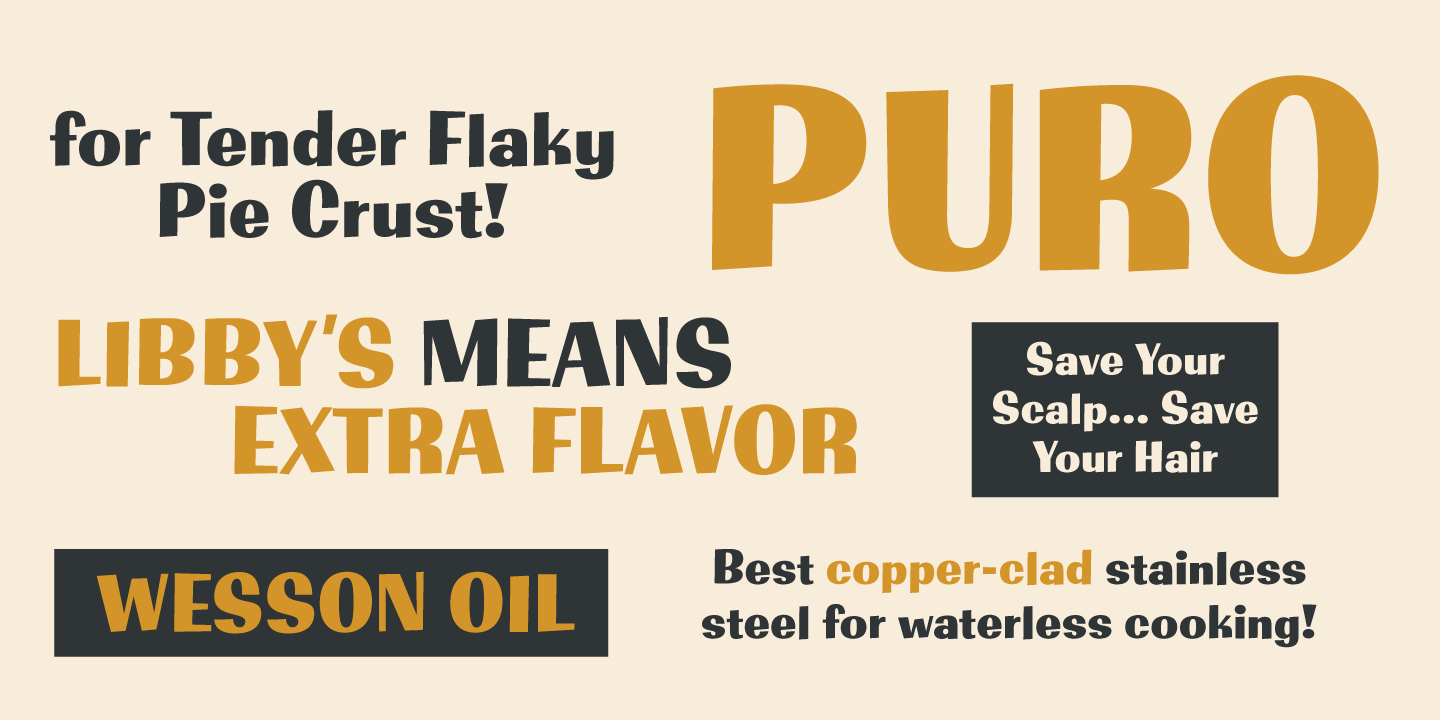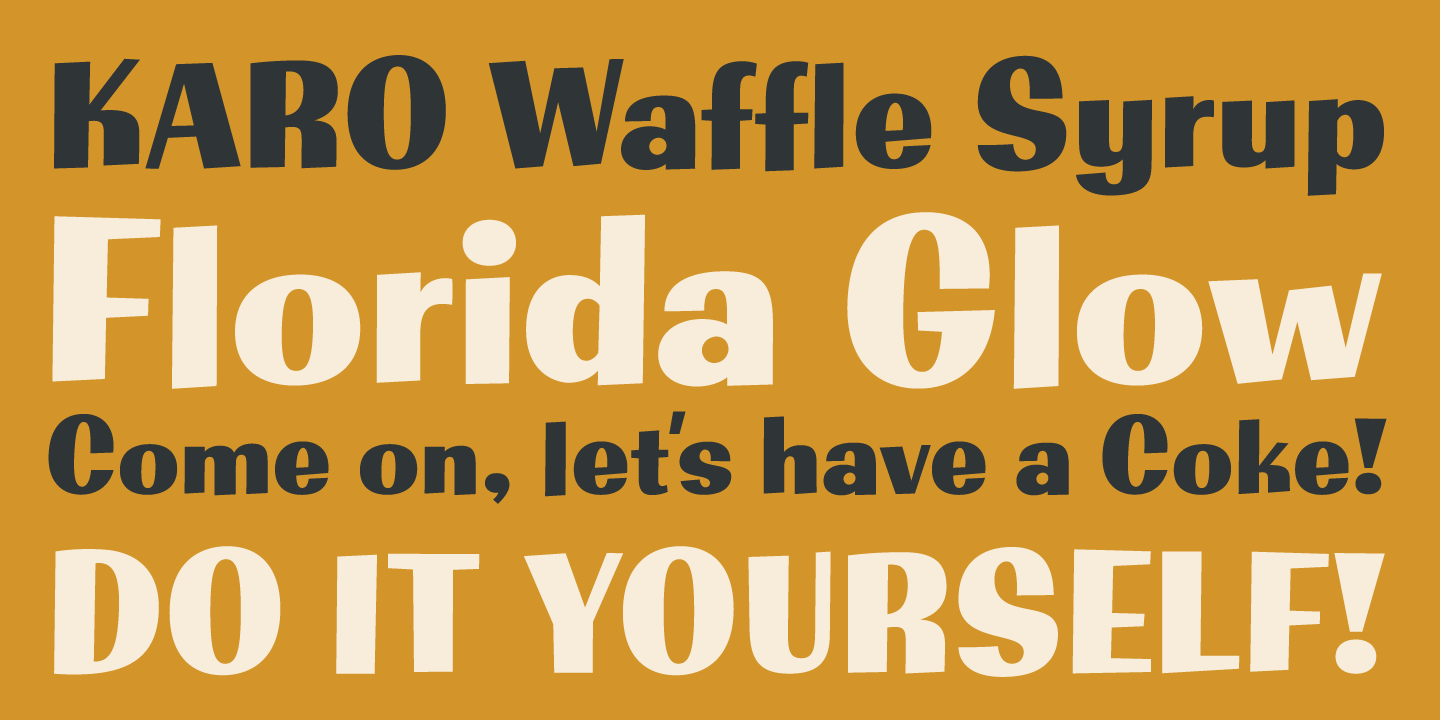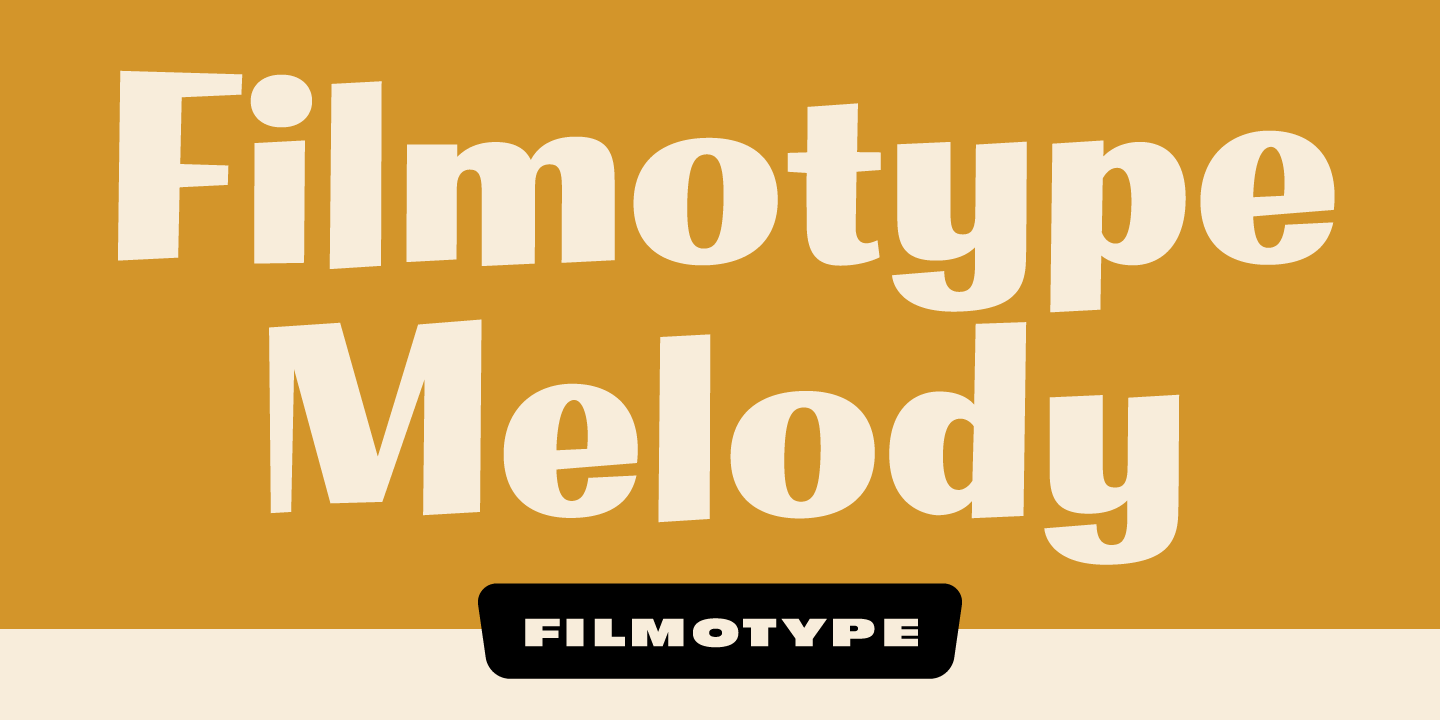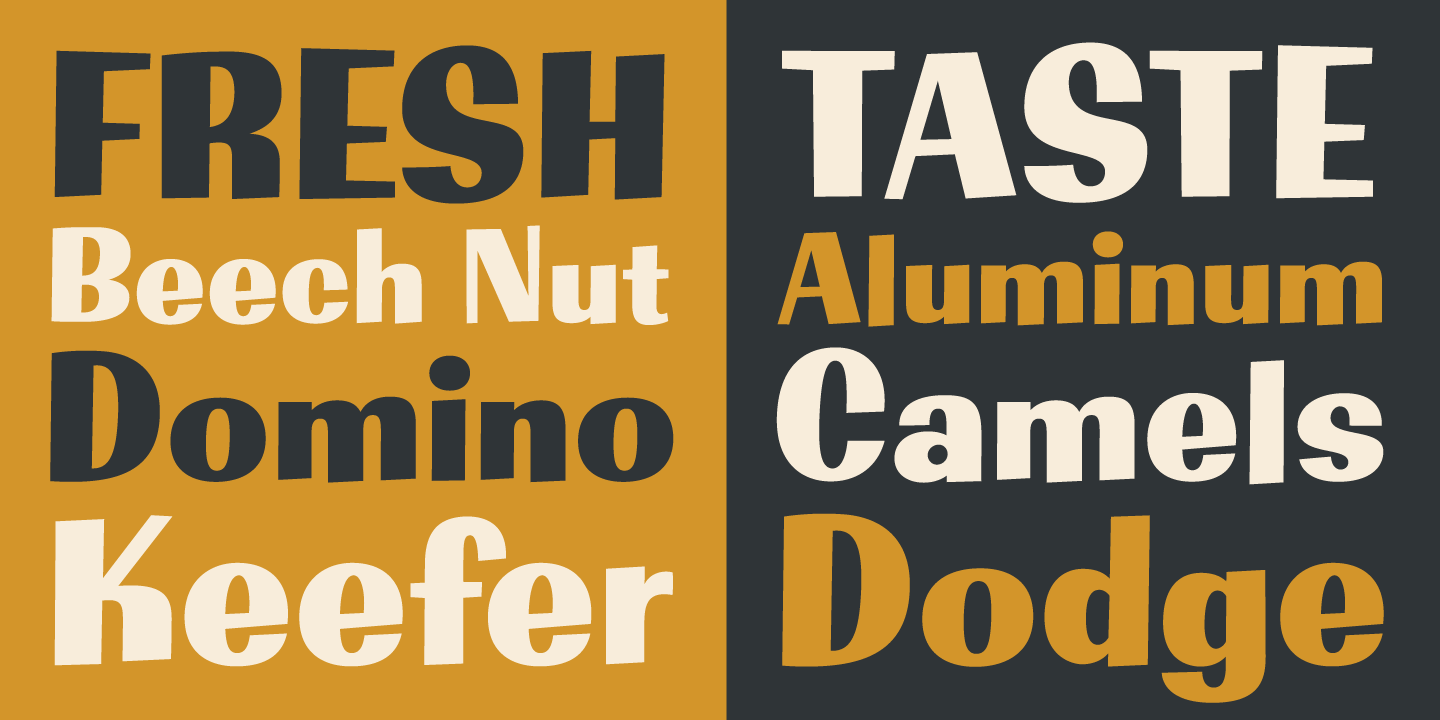
Filmotype Melody
About Filmotype Melody
Originally released in the late 1950s, Filmotype expanded it's Free Style typeface category with the introduction of Melody, an offbeat Googie era doo-wop typeface which was most frequently associated with music and entertainment lettering styles…